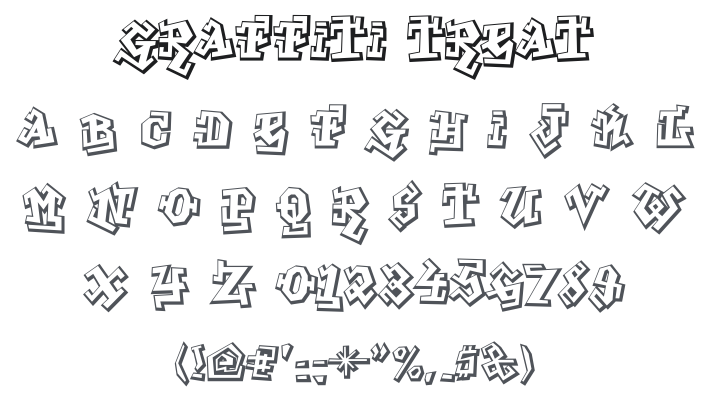
Graffiti Treat Font Family
About Graffiti Treat
Graffiti Treat is a staggered, angular graffiti-inspired display typeface where letters lean and jostle at varying angles, capturing the spontaneous energy of spray-painted street art. It comes in three layerable files for creative colour fill effects. Great for urban streetwear branding, hip-hop graphics, skate culture designs, music posters, and any headline that needs raw, expressive street attitude.